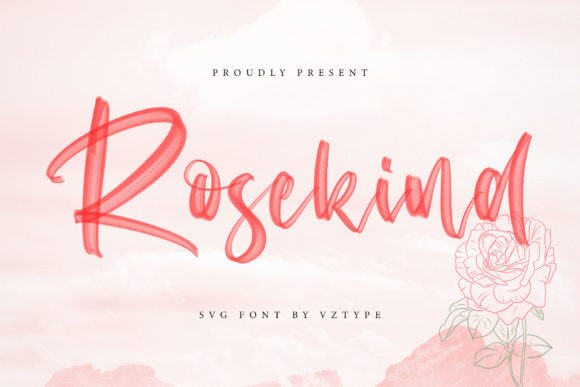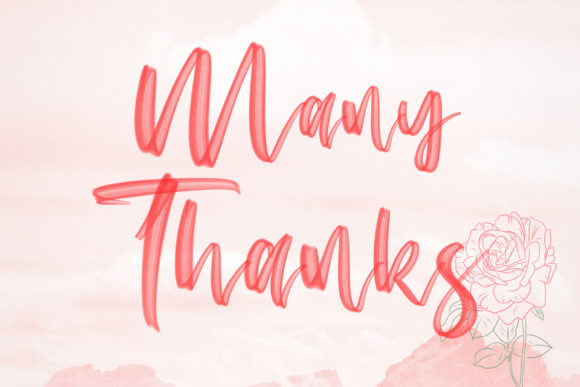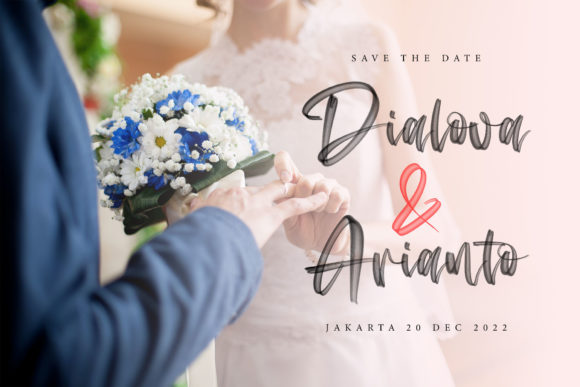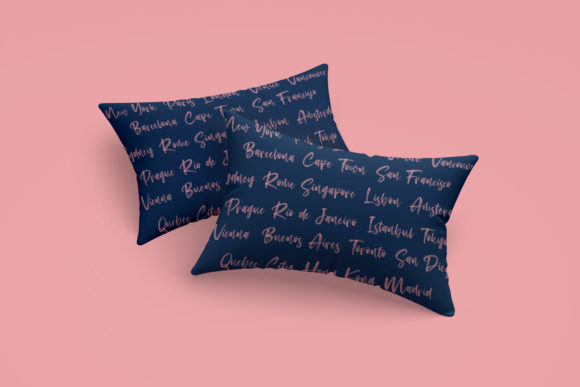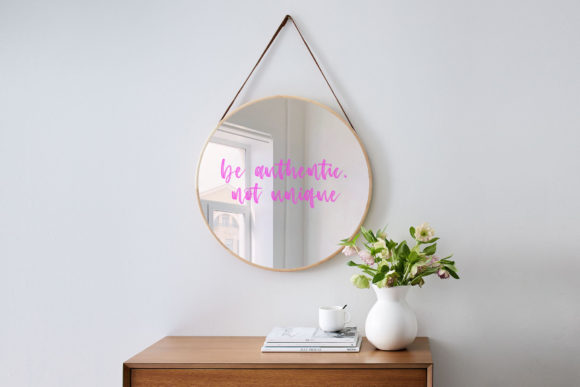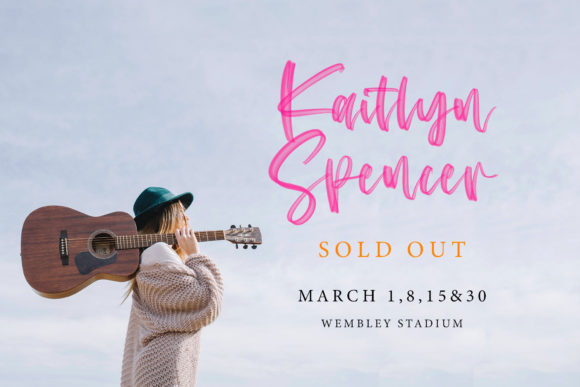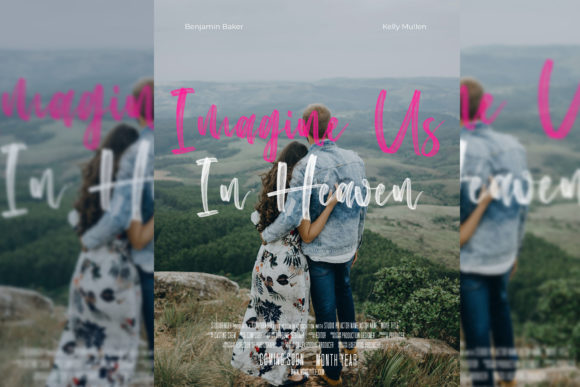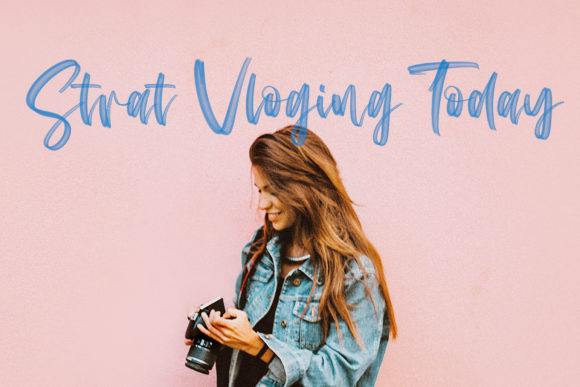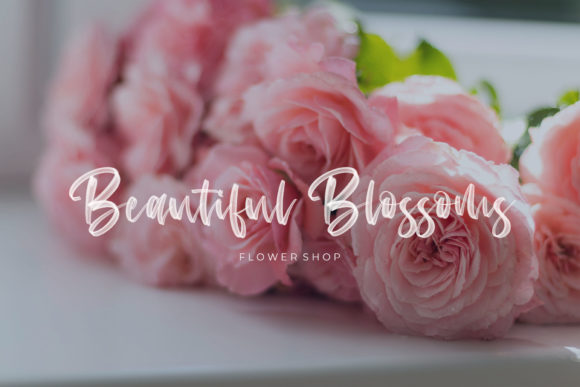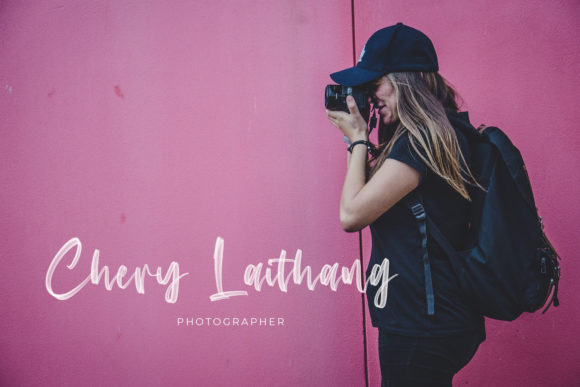
Rosekind Font
About Rosekind Font
Rosekind results out of a stunning pairing of a brush pen and pencil that makes it look incredibly endearing and authentic. Use this gorgeous and unique SVG handwritten font to bring any DIY project to life!